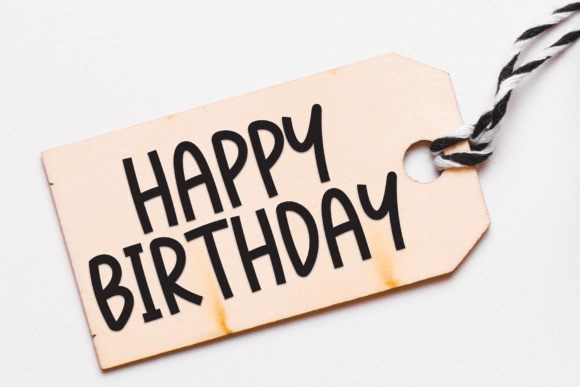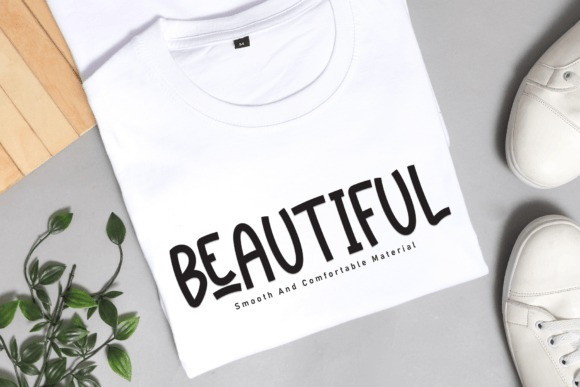
Groovy Babe Font
Groovy Babe Font – a display font with a handwritten charm. This font brings a touch of playful elegance to your designs, making it perfect for headers, posters, and creative projects. With its groovy and casual style, Groovy Babe adds a laid-back yet stylish vibe to any text, making your words stand out with a hint of personality. Embrace the carefree spirit with GroovyBabe for a delightful and visually appealing touch in your design endeavors.